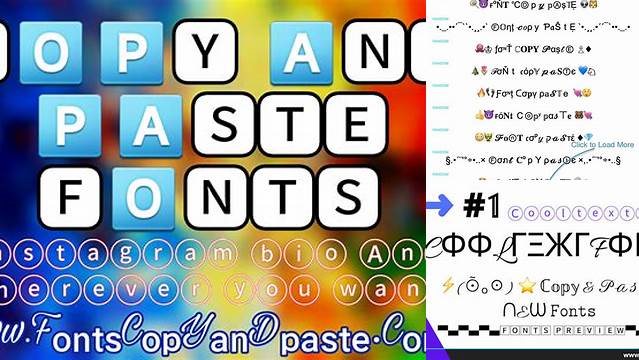
Cool Text Fonts: Copy & Paste For Social Media!
Hey guys! Ever wanted to spice up your social media posts, messages, or even documents with some cool text fonts? You know, something that stands out from the usual plain text? Well, you've come to the right place! It's super easy to copy and paste these fonts, and I'm going to show you exactly how to do it. Get ready to transform your text game!
1. What are Cool Text Fonts, Anyway?
So, what exactly are cool text fonts? We're not talking about downloading and installing new fonts on your computer (though that's cool too!). Instead, these are pre-made text styles that use Unicode characters to mimic different fonts. Think of it like a visual trick! They can range from simple variations like italic or bold to more elaborate styles like bubble text, gothic fonts, or even upside-down text. The best part? You can copy and paste them anywhere that supports Unicode, which is pretty much everywhere these days – social media, messaging apps, emails, you name it. Using cool text fonts is a great way to make your content more engaging and eye-catching. They help you express your personality and make your messages stand out from the crowd. Whether you're creating a social media post, designing a flyer, or just sending a fun message to a friend, these fonts can add a touch of creativity and flair to your work. Experiment with different styles to see what works best for you and your audience. Don't be afraid to get creative and have fun with it! Remember, the goal is to make your content more visually appealing and engaging, so choose fonts that reflect your style and message. With a little practice, you'll be able to create stunning text designs that grab attention and leave a lasting impression.
2. Why Use Fancy Text Fonts?
Why bother with fancy text fonts? Well, for starters, they grab attention! In a sea of standard text, a unique font can make your message pop. Imagine scrolling through your social media feed – what's more likely to catch your eye: a plain text post or one with a cool, stylish font? Exactly! These fonts can also help you express your personality and brand. Are you going for a playful vibe? Try bubble text! A sophisticated look? Go for an italic or serif-style font. The possibilities are endless. Furthermore, using fancy text fonts can improve engagement. A visually appealing post is more likely to be liked, commented on, and shared. This can lead to increased visibility and a wider reach for your content. They can also be used to highlight important information. For example, you can use a bold or underlined font to emphasize key points in a document or presentation. This helps draw the reader's attention to the most important details and makes the content easier to understand. In addition to social media and marketing, fancy text fonts can also be used in personal projects. They're great for creating invitations, greeting cards, and other creative designs. They add a personal touch to your work and make it stand out from the ordinary. So, whether you're a business owner, a marketer, or just someone who wants to add a little flair to their communications, consider using fancy text fonts. They're a simple yet effective way to make your content more engaging, memorable, and visually appealing.
3. How to Copy and Paste Cool Fonts: A Step-by-Step Guide
Okay, so how do you actually copy and paste these cool fonts? It's super simple! First, you need to find a font generator website or app. There are tons of free options online – just search for "fancy text generator" or "cool font generator." Once you're on the site, type your text into the input box. The generator will then display your text in a variety of cool text fonts. Simply scroll through the options and find the font you like. Click the "copy" button next to the font, or manually select the text and copy it using Ctrl+C (or Cmd+C on a Mac). Now, go to the place where you want to use the font – whether it's a social media post, a message, or a document – and paste the text using Ctrl+V (or Cmd+V). And that's it! You've successfully copied and pasted a cool text font. If the website doesn't have a copy button, you can also manually select the text with your mouse and then use the copy and paste commands. Make sure you select all the characters in the font to ensure it displays correctly. Some websites may also offer additional customization options, such as changing the color or size of the font. Experiment with these options to create the perfect text design for your needs. With a little practice, you'll become a pro at copying and pasting cool text fonts and using them to enhance your content. Remember to choose fonts that are easy to read and appropriate for your audience. While it's fun to get creative, readability should always be a priority.
4. Best Websites for Generating Cool Text Fonts
There are so many great websites out there for generating cool text fonts! Here are a few of my favorites: LingoJam is a classic and super easy to use. Just type in your text, and it generates a bunch of different font styles. YayText is another popular choice, offering a wide variety of fonts and customization options. CoolSymbol is great if you want to add symbols and emojis to your text. FontGet offers a huge library of fonts, including both decorative and more traditional styles. These websites are user-friendly and require no registration or payment to use. They offer a diverse selection of cool text fonts, allowing you to find the perfect style for any occasion. Whether you're looking for something playful and whimsical or something elegant and sophisticated, you're sure to find it on one of these websites. LingoJam is known for its simplicity and speed, making it a great option for quick text transformations. YayText provides more advanced customization options, allowing you to fine-tune the appearance of your text. CoolSymbol is perfect for adding fun and expressive elements to your messages. FontGet offers a wide range of font styles, including serif, sans-serif, script, and display fonts. These websites are regularly updated with new fonts and features, so you can always find something fresh and exciting to try. They are also compatible with most devices and browsers, making it easy to generate cool text fonts on the go. So, whether you're using a desktop computer, a laptop, or a mobile device, you can access these websites and start creating amazing text designs in seconds.
5. Cool Text Fonts for Instagram
Instagram is all about visuals, so using cool text fonts for Instagram is a must! They can make your bio stand out, add flair to your captions, and even spice up your stories. When choosing a font for Instagram, consider your overall brand aesthetic. Are you going for a fun and playful vibe, or a more sophisticated and professional look? Choose fonts that align with your brand identity to create a cohesive and memorable presence on the platform. Some popular cool text fonts for Instagram include bubble text, cursive fonts, and bold fonts. You can use these fonts to highlight important information in your bio, add personality to your captions, or create eye-catching text overlays for your stories. Make sure the fonts you choose are easy to read, especially on smaller screens. Avoid fonts that are too complex or decorative, as they may be difficult to decipher. Also, keep in mind that Instagram has some limitations on the types of fonts that can be used. Some fonts may not display correctly on all devices, so it's important to test your fonts before posting them. You can use a font generator website or app to create cool text fonts for Instagram and then copy and paste them into your bio, captions, or stories. There are many free options available online, so you can easily find a font that suits your style and needs. Using cool text fonts for Instagram is a simple yet effective way to make your content more engaging and visually appealing. It can help you attract more followers, increase engagement, and stand out from the crowd. So, experiment with different fonts and find the ones that work best for you.
6. Facebook Font Generator: Making Your Posts Pop
Want to make your Facebook posts stand out? A Facebook font generator is your best friend! Using unique fonts can grab attention in a crowded newsfeed. Just like with Instagram, consider your personal or brand aesthetic when choosing a font. A Facebook font generator can help you create stylish text for status updates, comments, and even your profile information. Choose fonts that reflect your personality and make your posts more engaging. Some popular font styles for Facebook include bold fonts, italic fonts, and decorative fonts. You can use these fonts to highlight important information, add emphasis to your messages, or simply make your posts more visually appealing. When using a Facebook font generator, make sure the fonts you choose are easy to read, especially on smaller screens. Avoid fonts that are too complex or decorative, as they may be difficult to decipher. Also, keep in mind that Facebook has some limitations on the types of fonts that can be used. Some fonts may not display correctly on all devices, so it's important to test your fonts before posting them. You can use a Facebook font generator to create text in different styles and then copy and paste it into your Facebook posts or profile. There are many free options available online, so you can easily find a font that suits your style and needs. Using a Facebook font generator is a simple yet effective way to make your content more engaging and visually appealing. It can help you attract more attention, increase engagement, and stand out from the crowd. So, experiment with different fonts and find the ones that work best for you.
7. Twitter Fonts: Standing Out in 280 Characters
With only 280 characters to work with, making an impact on Twitter is crucial! Twitter fonts can help you do just that. A unique font can make your tweets stand out from the endless scroll. Choose fonts that are easy to read and visually appealing, even in small sizes. Some popular font styles for Twitter include bold fonts, italic fonts, and monospace fonts. You can use these fonts to highlight important information, add emphasis to your messages, or simply make your tweets more engaging. When using Twitter fonts, keep in mind that readability is key. Avoid fonts that are too complex or decorative, as they may be difficult to decipher in the limited space of a tweet. Also, be aware that Twitter has some limitations on the types of fonts that can be used. Some fonts may not display correctly on all devices, so it's important to test your fonts before posting them. You can use a font generator website or app to create Twitter fonts and then copy and paste them into your tweets. There are many free options available online, so you can easily find a font that suits your style and needs. Using Twitter fonts is a simple yet effective way to make your tweets more engaging and visually appealing. It can help you attract more attention, increase engagement, and stand out from the crowd. So, experiment with different fonts and find the ones that work best for you. Consider using fonts that align with your brand identity to create a consistent and recognizable presence on Twitter.
8. Cool Text Fonts for TikTok: Engaging Your Audience
TikTok is all about grabbing attention quickly, and cool text fonts for TikTok are a great way to do that! Use them in your video descriptions or as text overlays within your videos. Choose fonts that are visually appealing and easy to read, even on small screens. Consider using fonts that align with the overall style and tone of your videos. If you're creating fun and playful content, choose fonts that are equally whimsical. If you're creating more serious or informative content, choose fonts that are more professional and understated. Some popular cool text fonts for TikTok include bubble fonts, handwritten fonts, and bold fonts. You can use these fonts to highlight important information, add emphasis to your messages, or simply make your videos more engaging. When using cool text fonts for TikTok, make sure the fonts you choose are easy to read, even on small screens. Avoid fonts that are too complex or decorative, as they may be difficult to decipher. Also, keep in mind that TikTok has some limitations on the types of fonts that can be used. Some fonts may not display correctly on all devices, so it's important to test your fonts before posting them. You can use a font generator website or app to create cool text fonts for TikTok and then copy and paste them into your video descriptions or text overlays. There are many free options available online, so you can easily find a font that suits your style and needs. Using cool text fonts for TikTok is a simple yet effective way to make your content more engaging and visually appealing. It can help you attract more viewers, increase engagement, and stand out from the crowd. So, experiment with different fonts and find the ones that work best for you.
9. Stylish Text Generator: Beyond the Basics
Looking for something more than just bold or italic? A stylish text generator can create truly unique and eye-catching text styles. These generators often offer a wider range of font options, including decorative fonts, script fonts, and even glitch effects. A stylish text generator allows you to create text that is not only visually appealing but also reflects your personality and style. Whether you're looking for something elegant and sophisticated or something edgy and unconventional, you can find the perfect font to express yourself. Some popular font styles created by a stylish text generator include calligraphy fonts, graffiti fonts, and futuristic fonts. You can use these fonts to create eye-catching headlines, logos, or even social media posts. When using a stylish text generator, keep in mind that readability is still important. Avoid fonts that are too complex or difficult to decipher, as they may detract from your message. Also, be aware that some font styles may not be supported by all platforms or devices. Before using a font, make sure it displays correctly on the intended platform. You can use a stylish text generator to create text in different styles and then copy and paste it into your documents, websites, or social media profiles. There are many free and paid options available online, so you can choose the one that best suits your needs. Using a stylish text generator is a great way to add personality and flair to your content. It can help you stand out from the crowd and make a lasting impression on your audience. So, experiment with different fonts and find the ones that resonate with you.
10. Unicode Text Converter: Understanding the Magic
Ever wondered how these cool text fonts actually work? It's all thanks to Unicode! A Unicode text converter translates regular text into special Unicode characters that mimic different font styles. Unicode is a universal character encoding standard that assigns a unique number to every character in every language. This allows computers to display text correctly, regardless of the language or font being used. A Unicode text converter takes advantage of this standard to create cool text fonts by using special Unicode characters that resemble different font styles. These characters are not actually different fonts, but rather different representations of the same characters. When you copy and paste a cool text font, you are actually copying and pasting these special Unicode characters. The receiving device or platform then interprets these characters and displays them in the corresponding font style. Understanding how a Unicode text converter works can help you troubleshoot any issues you may encounter when using cool text fonts. For example, if a font style is not displaying correctly, it may be because the receiving device or platform does not support the specific Unicode characters being used. In this case, you may need to try a different font style or use a different Unicode text converter. A Unicode text converter is a powerful tool for creating cool text fonts and adding personality to your content. By understanding how it works, you can use it effectively to enhance your communications.
11. Fancy Font Generator for Social Media
12. Unique Font Styles for Your Bio
13. Cool Font Apps for Mobile Devices
14. Creating a Brand with Cool Text
15. Monospace Fonts: A Retro Vibe
16. Cursive Fonts: Adding Elegance
17. Bold Text Generator: Making a Statement
18. Italic Text Generator: Subtle Emphasis
19. Bubble Text: Fun and Playful
20. Gothic Fonts: Dark and Mysterious
21. Upside Down Text: Just for Fun
22. Glitch Text: A Modern Twist
23. Combining Fonts for Visual Impact
24. Text Art: Beyond Simple Fonts
25. Font Pairing: Creating Harmony
26. Legal Considerations for Font Usage
27. The Psychology of Fonts
28. Font Trends in 2024
29. Custom Font Design: Taking it to the Next Level
30. Troubleshooting Font Display Issues